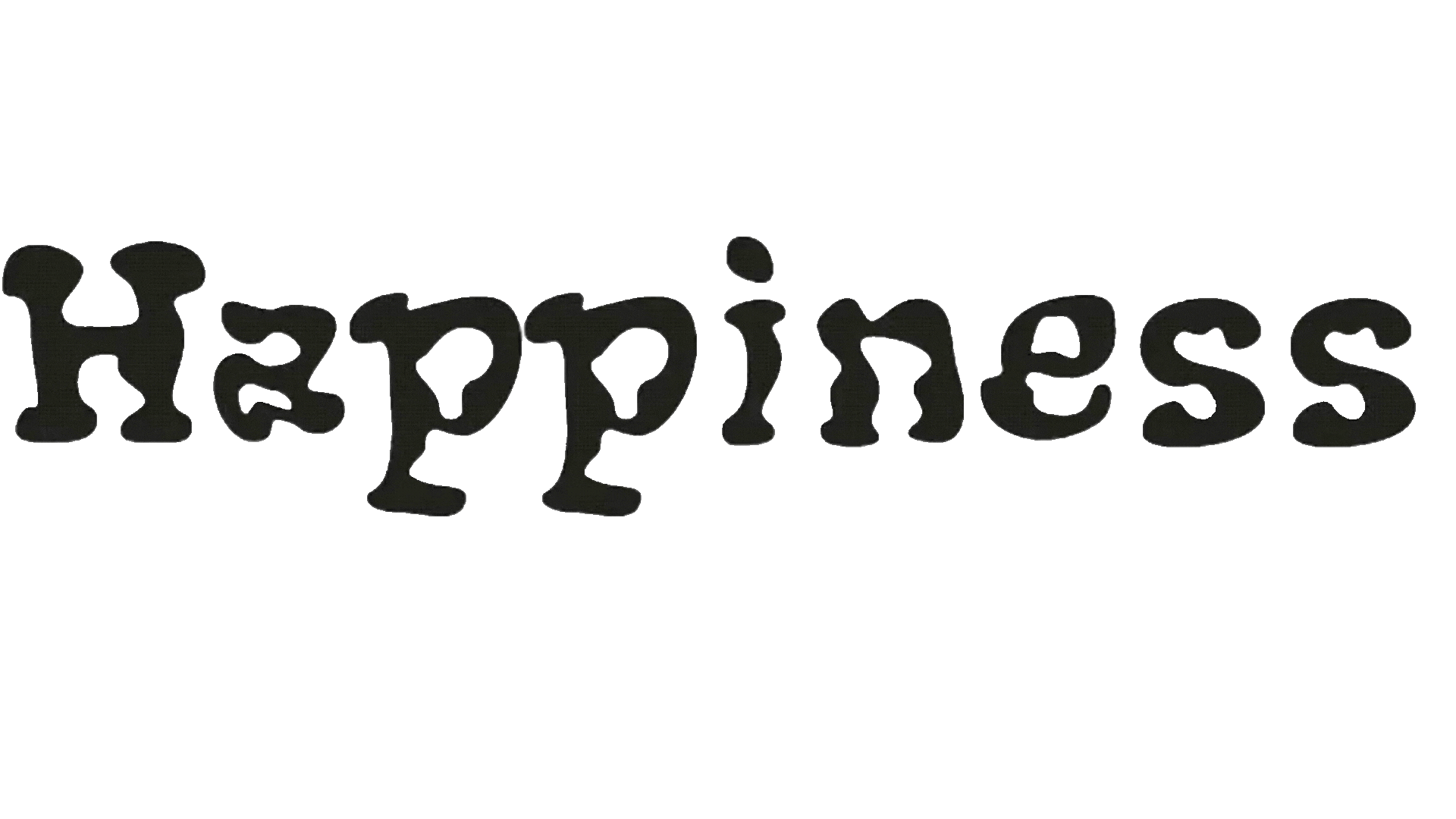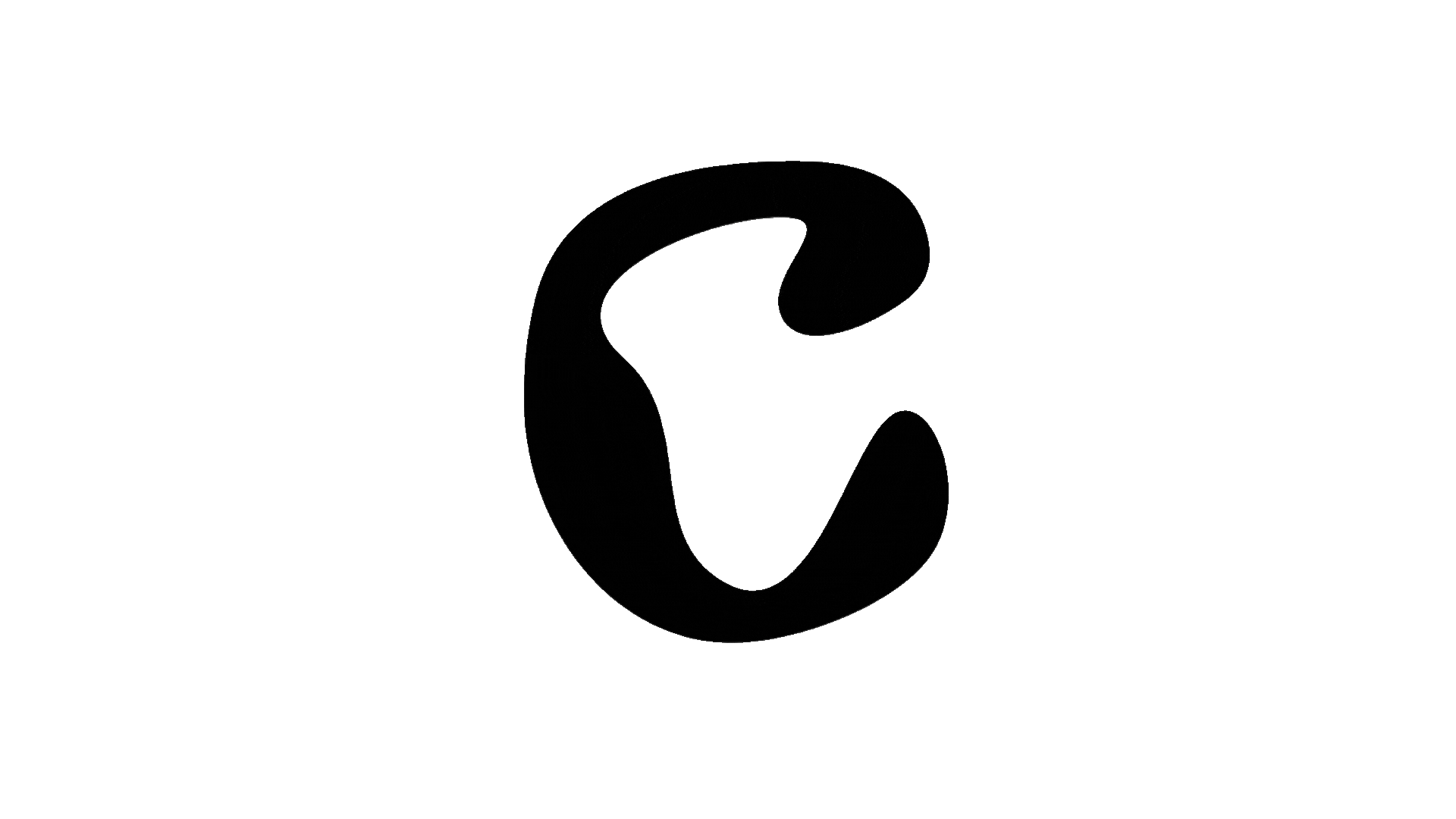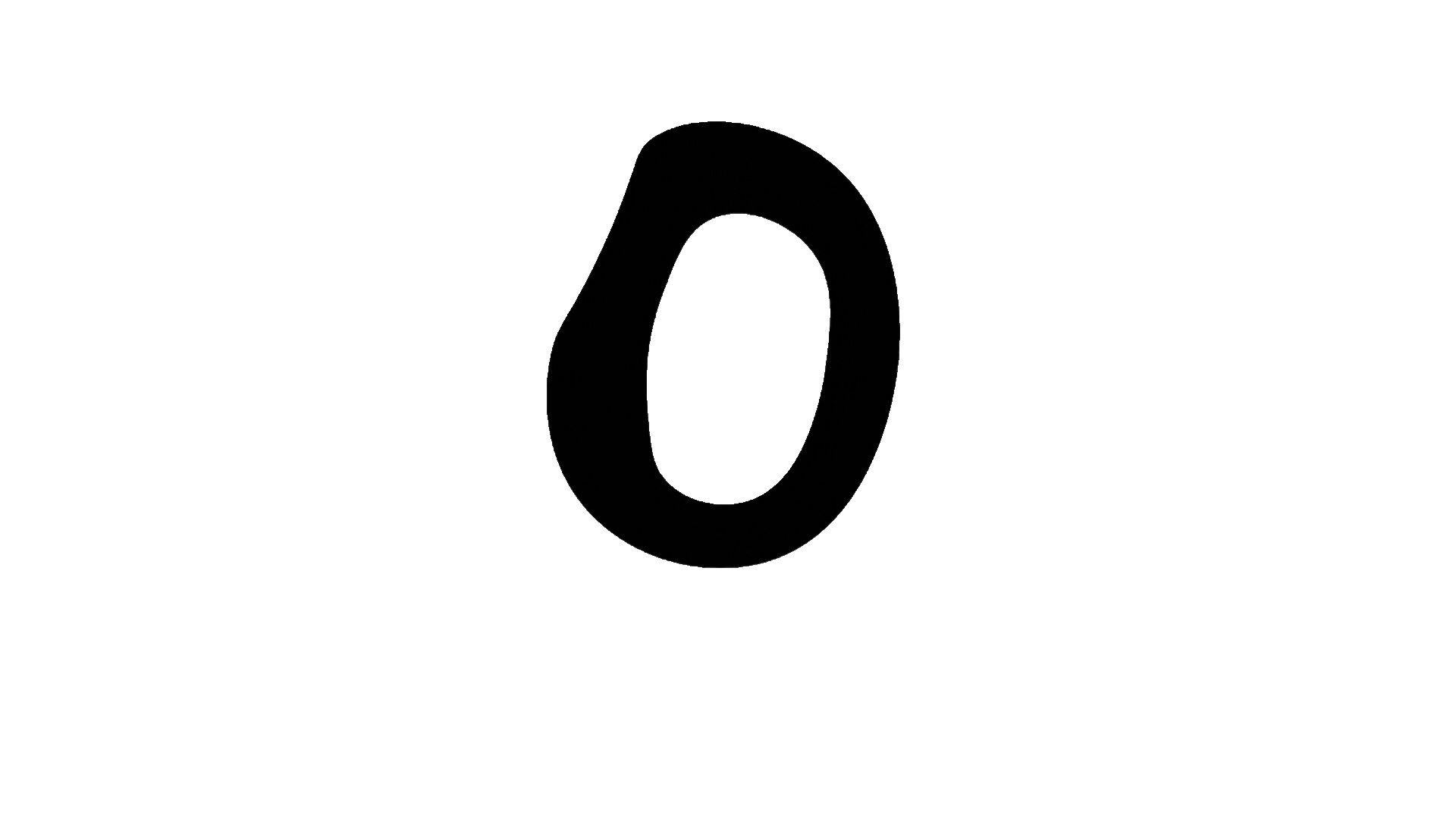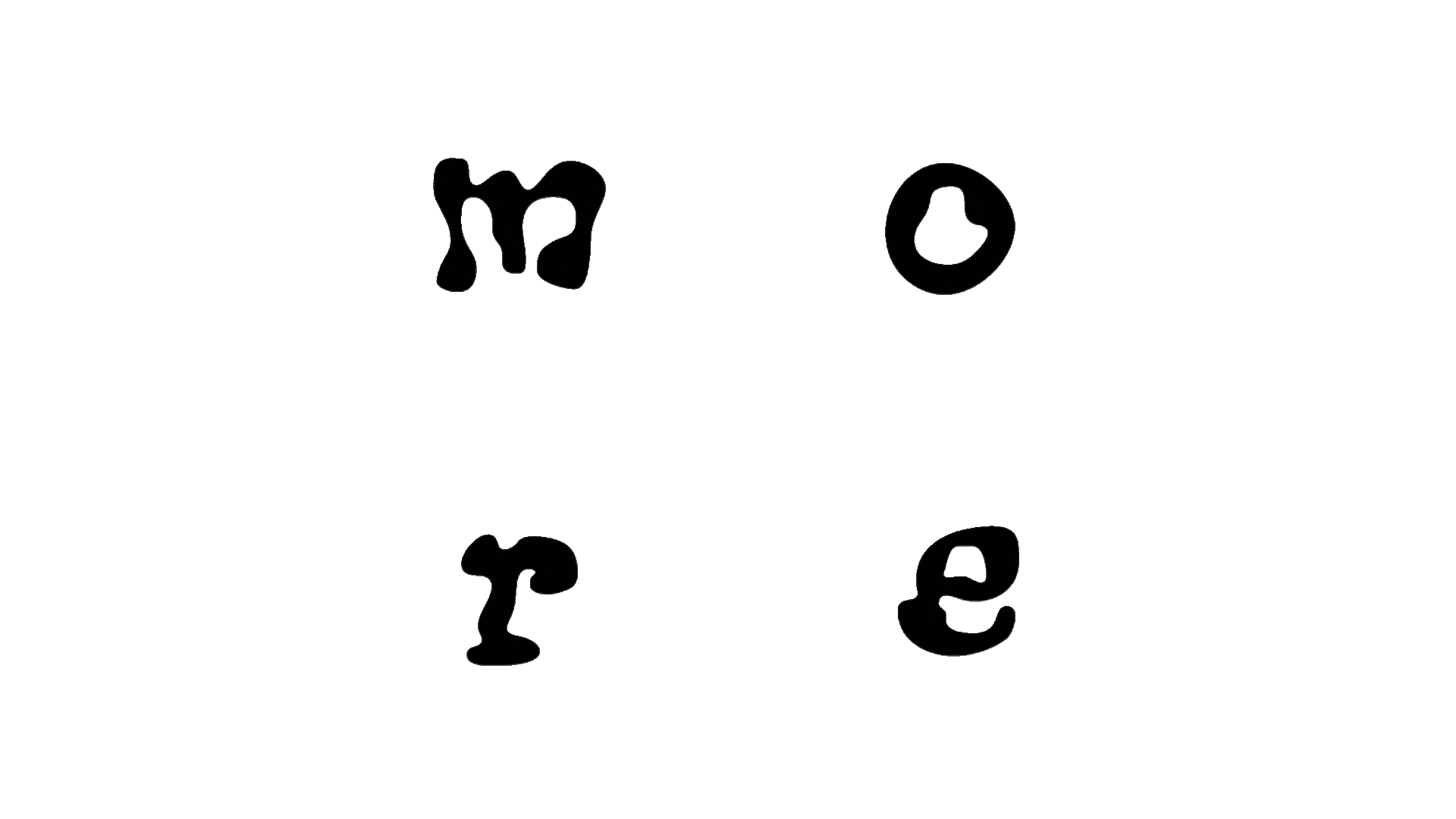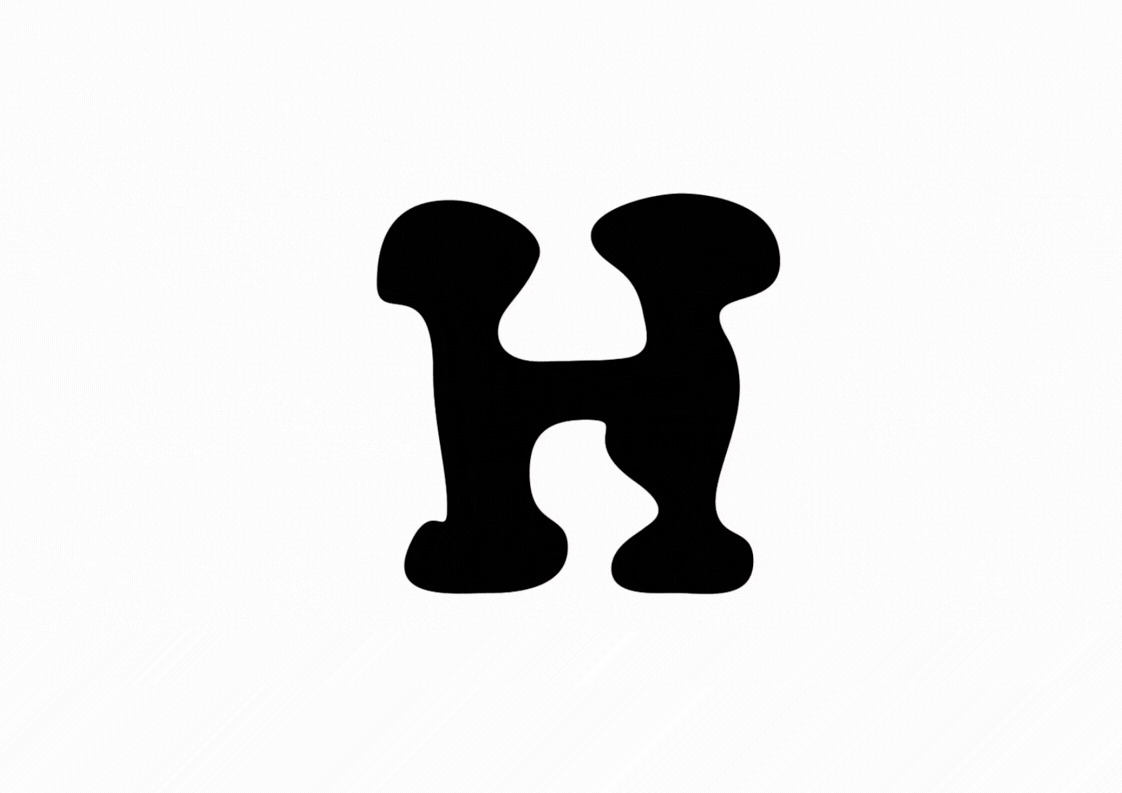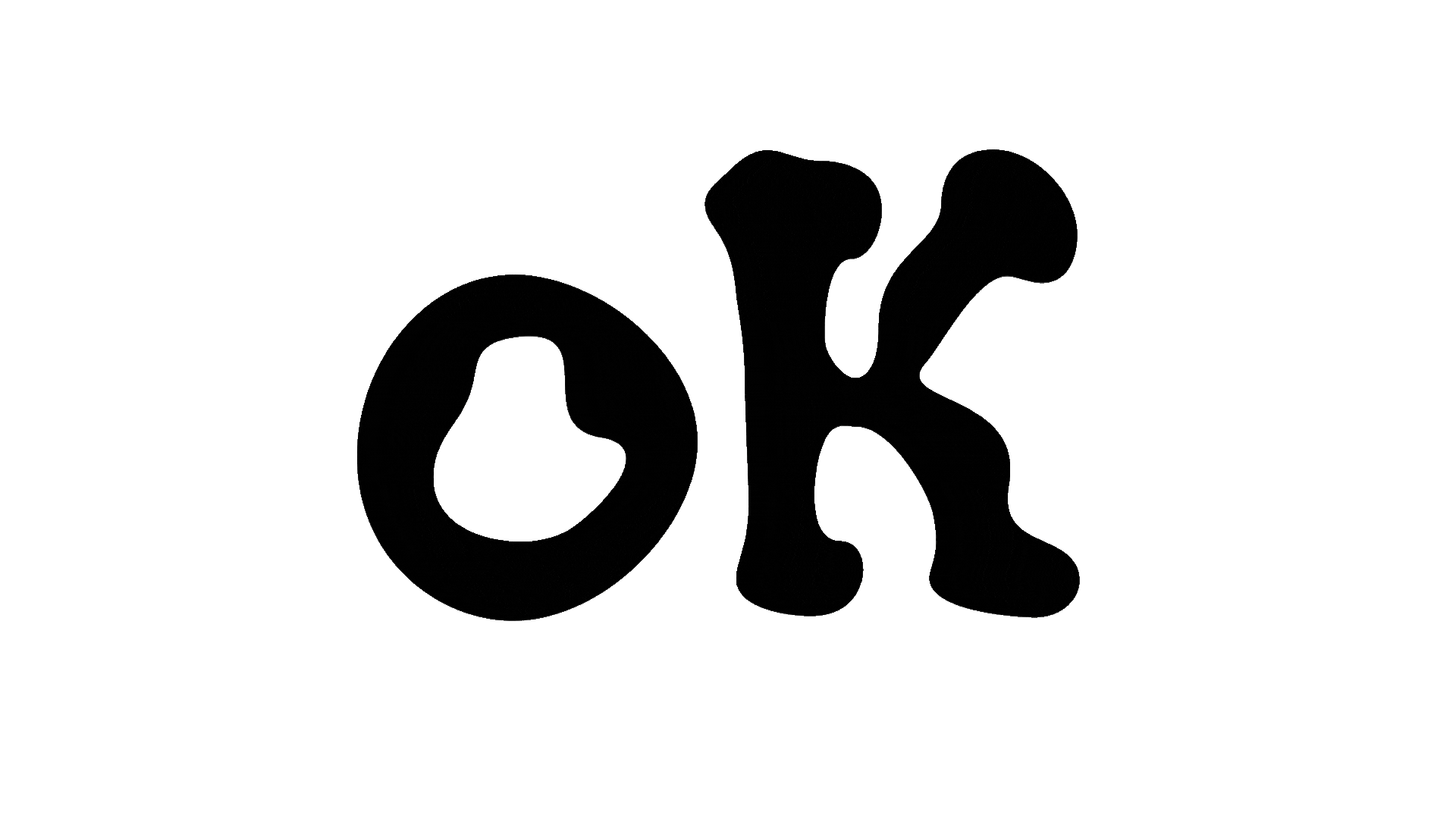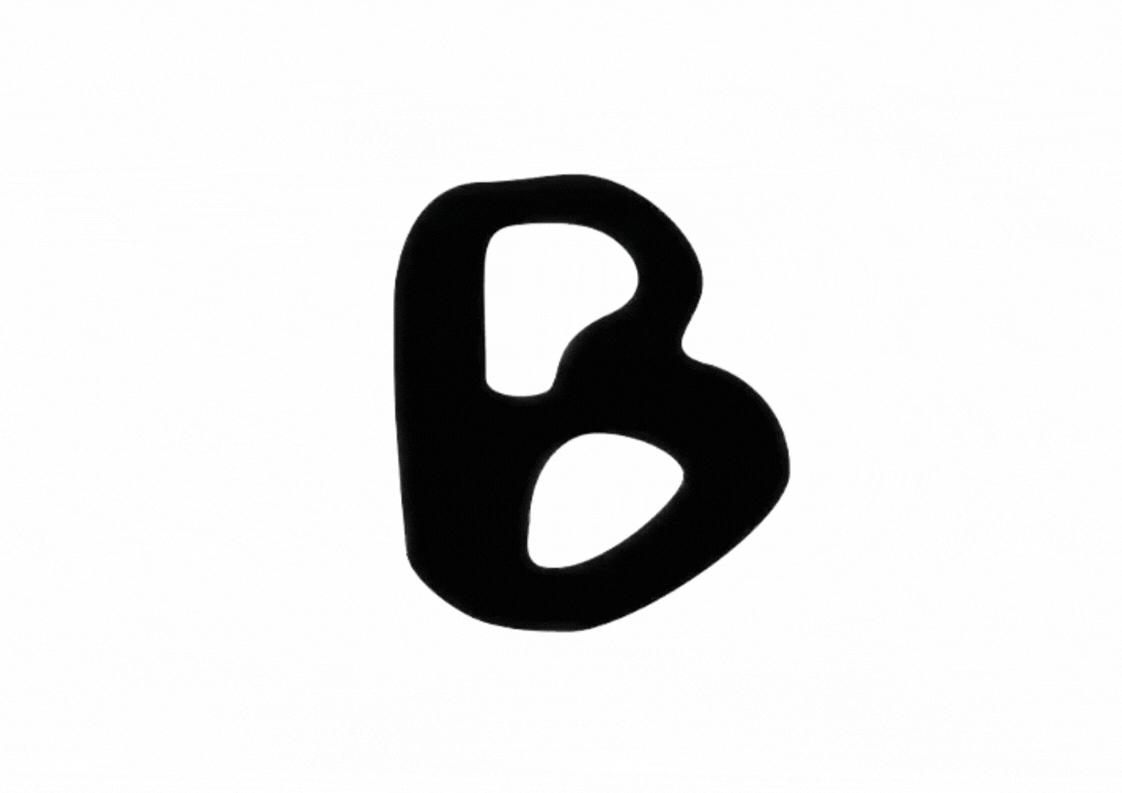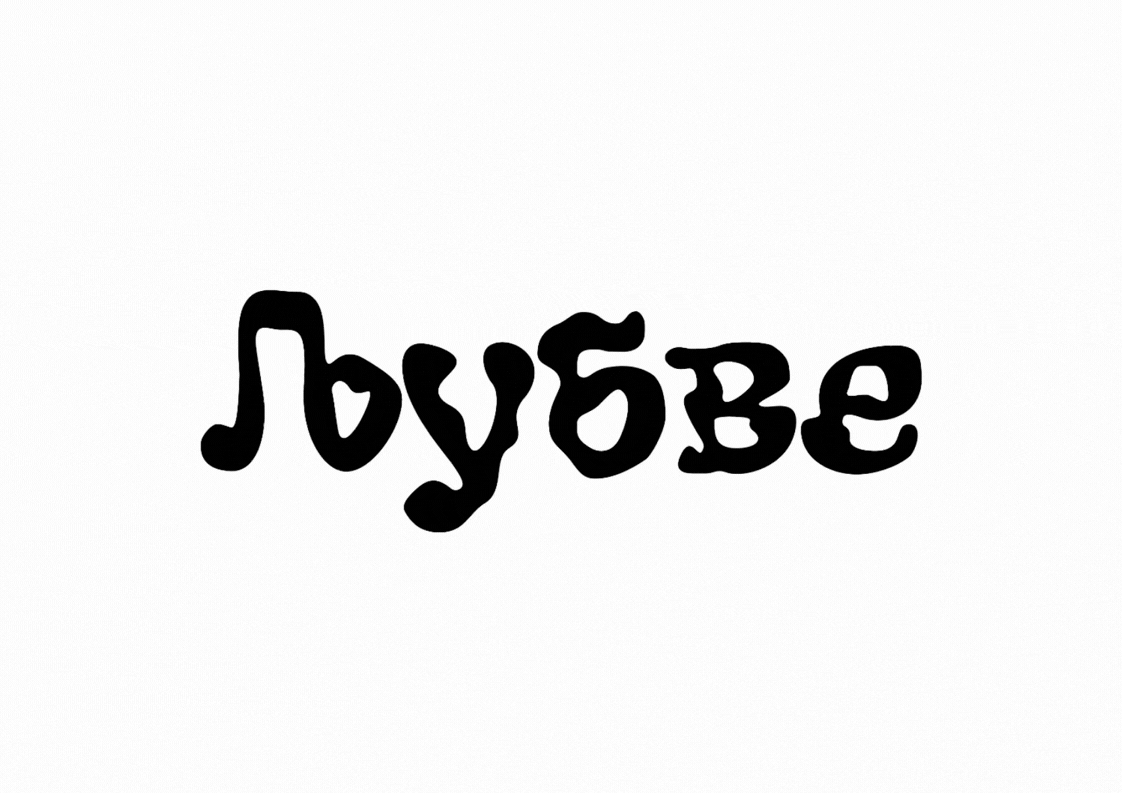
Visual Poetry of a Fluid Typeface
This work exists between reading and feeling.
Language loosens its function.
Letters stop serving only meaning
and begin to perform it.
In this fluid typeface, words are not fixed structures.
They drift. They hesitate. They collide.
They unfold over time.
Meaning is no longer immediate.
It appears, disappears, and reshapes itself
through movement.
Each composition becomes a moment—
not to be fully understood,
but experienced.
Here, typography becomes visual poetry.
Not written in lines,
but in gestures, rhythm, and change.